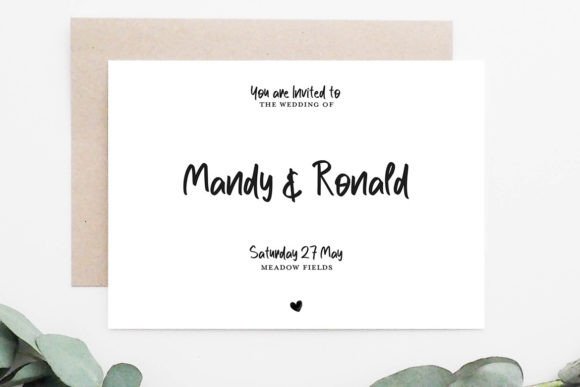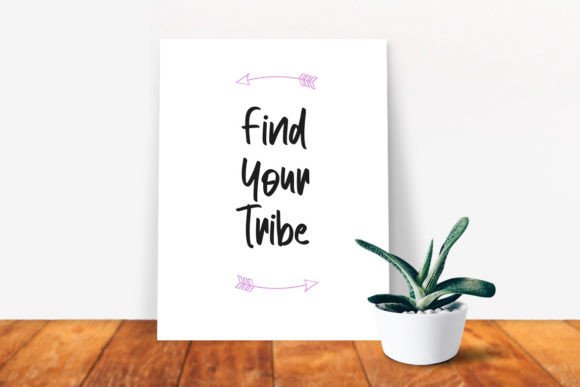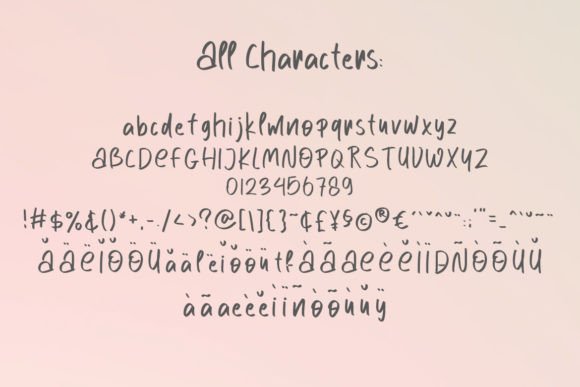
Introduction to Ordinary Bump Font
Have you ever stared at a blank canvas, trying to bring your creative project to life, only to be stuck by a lack of the perfect design element? That’s when I discovered the Ordinary Bump Font – a game-changing addition to my design arsenal. With its fun and funky style, this font is the perfect solution for modern and crafty-styled logos, templates, or even posters and stickers.
What sets the Ordinary Bump Font apart is its unique baseline and irregular curves that add a little playful twist to this typeface. This makes it an ideal choice for designers looking to add some personality to their work. Whether you’re working on a project that requires a high-quality font or simply want to spice up your design resource, the Ordinary Bump Font is a valuable addition to your collection.
Key Features of Ordinary Bump Font
- Designed with a unique, modern aesthetic, setting it apart from other fonts in its category.
- Perfect for creative projects that require a clean, minimalist look, such as logos, graphics, and typography-based designs.
Honest Review: Ordinary Bump Font
As a designer, I’m always on the lookout for high-quality design resources to elevate my creative projects. Recently, I stumbled upon the Ordinary Bump Font, and I’m excited to share my honest review.
- Unique and stylish design: The Ordinary Bump Font has a distinctive aesthetic that sets it apart from other fonts. Its irregular shapes and bumpy texture add a touch of personality to any design.
- Limited versatility: While the font is perfect for certain design projects, its bumpy texture might not be suitable for all types of designs, such as formal or professional layouts.
- Not suitable for small text: Due to its irregular shape, the font might become difficult to read when used in small text sizes.